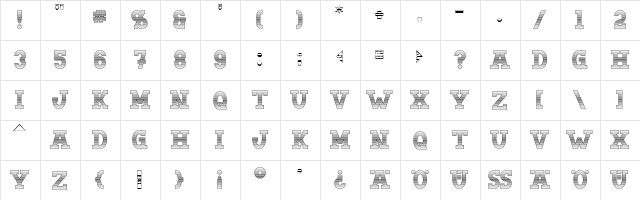
Doergon Wave Regular
Design Context for Doergon Wave Typeface
Doergon Wave offers clean, dependable letterforms without strong stylistic allegiance, making it a practical choice for designers who need flexibility.
Pro Tip: Use Doergon Wave in both headline and body roles to test its range before committing to a single application.